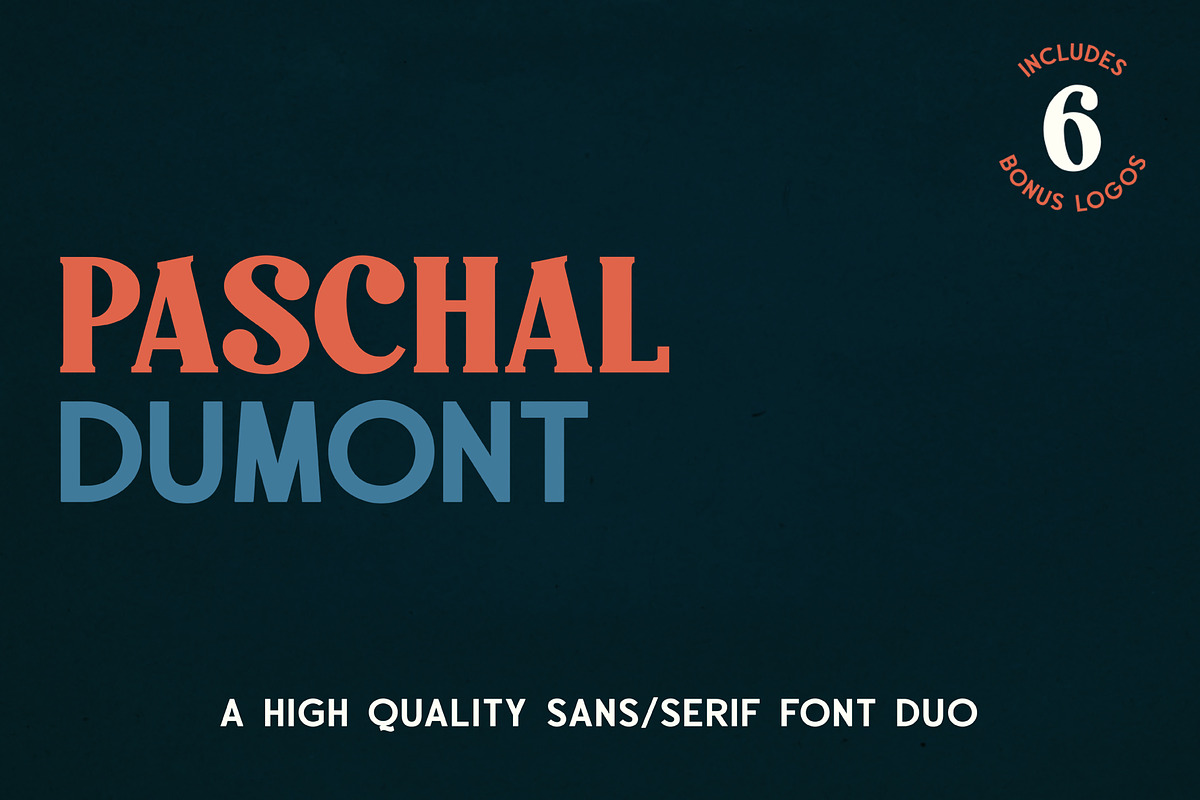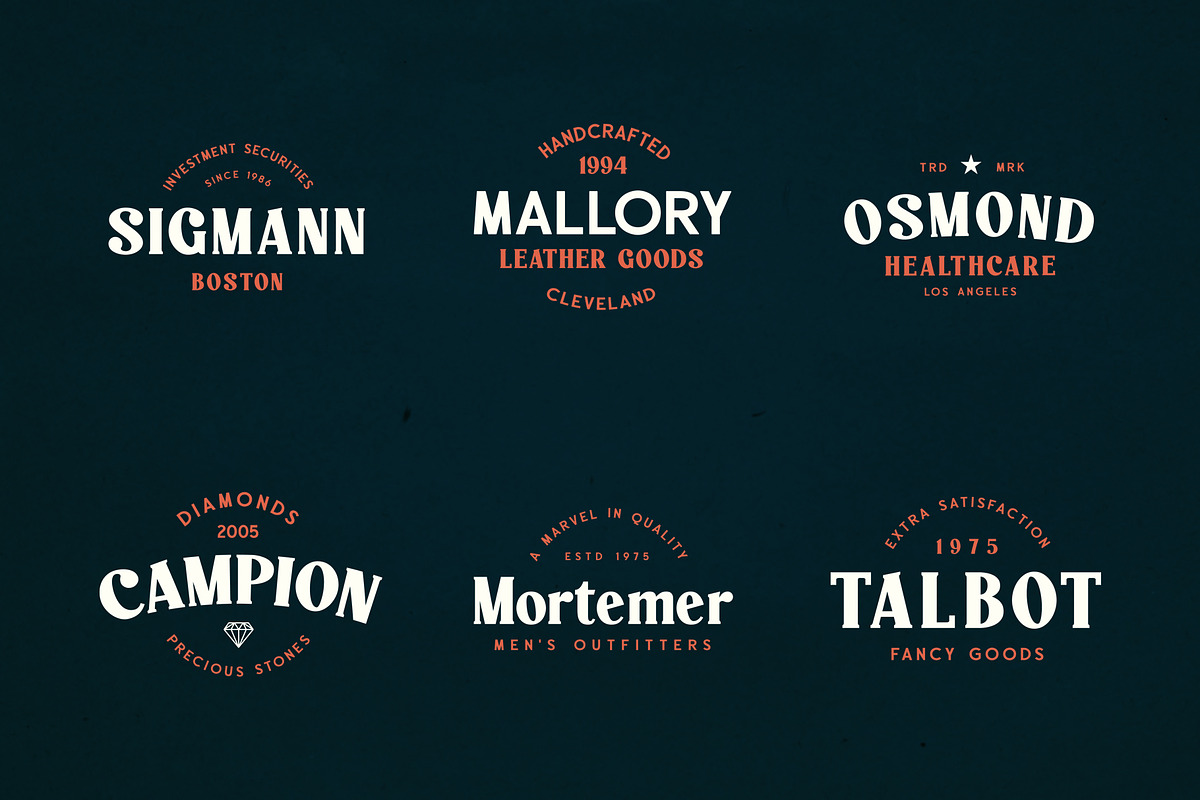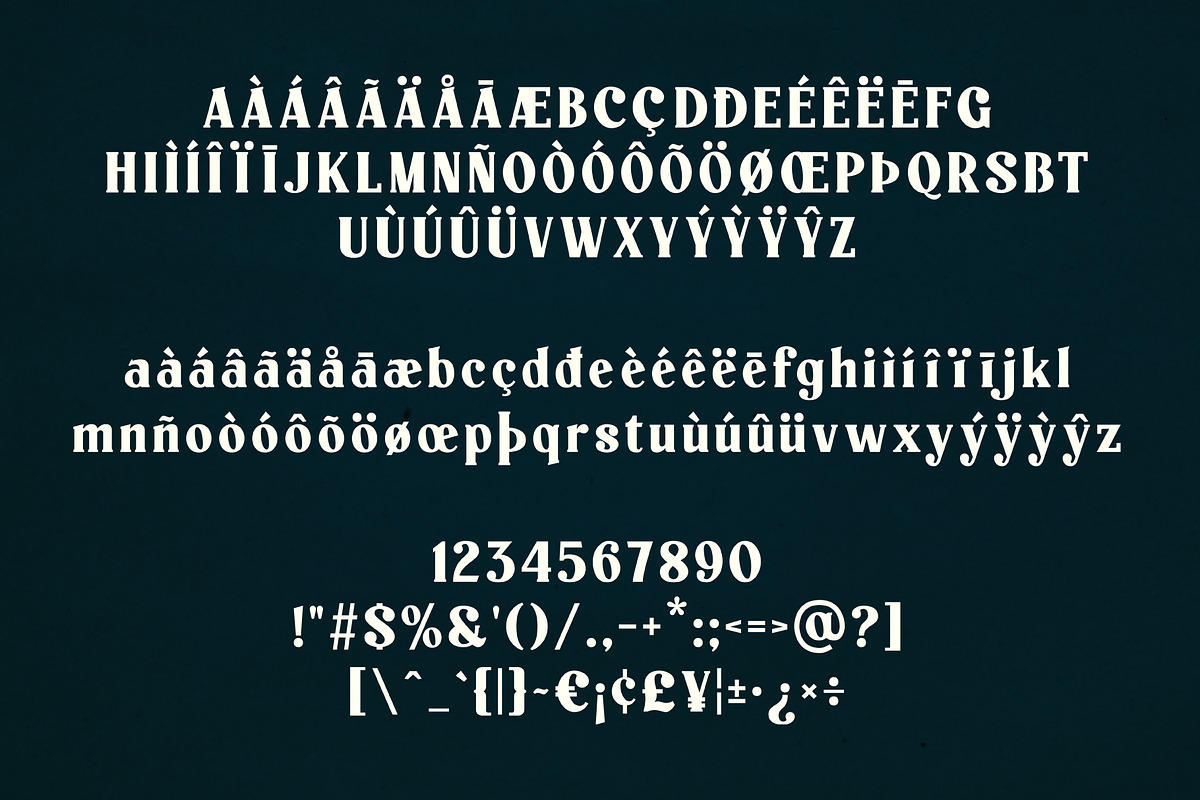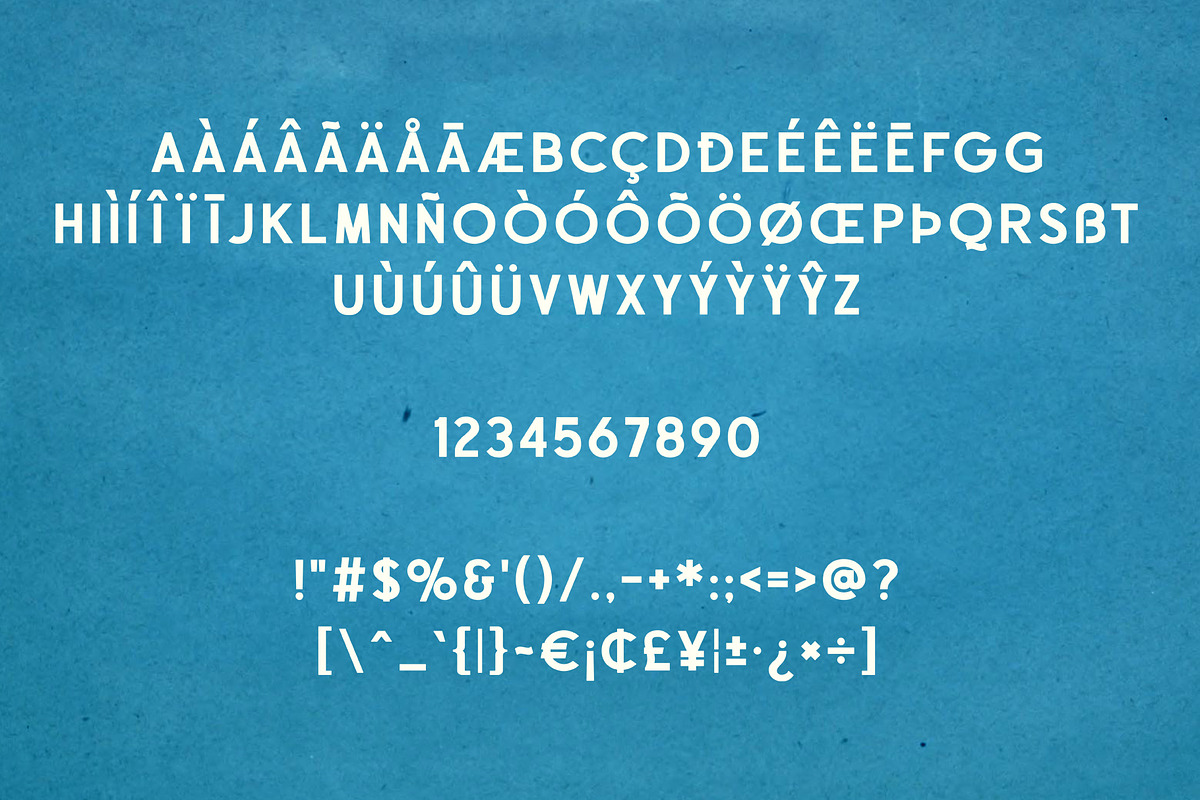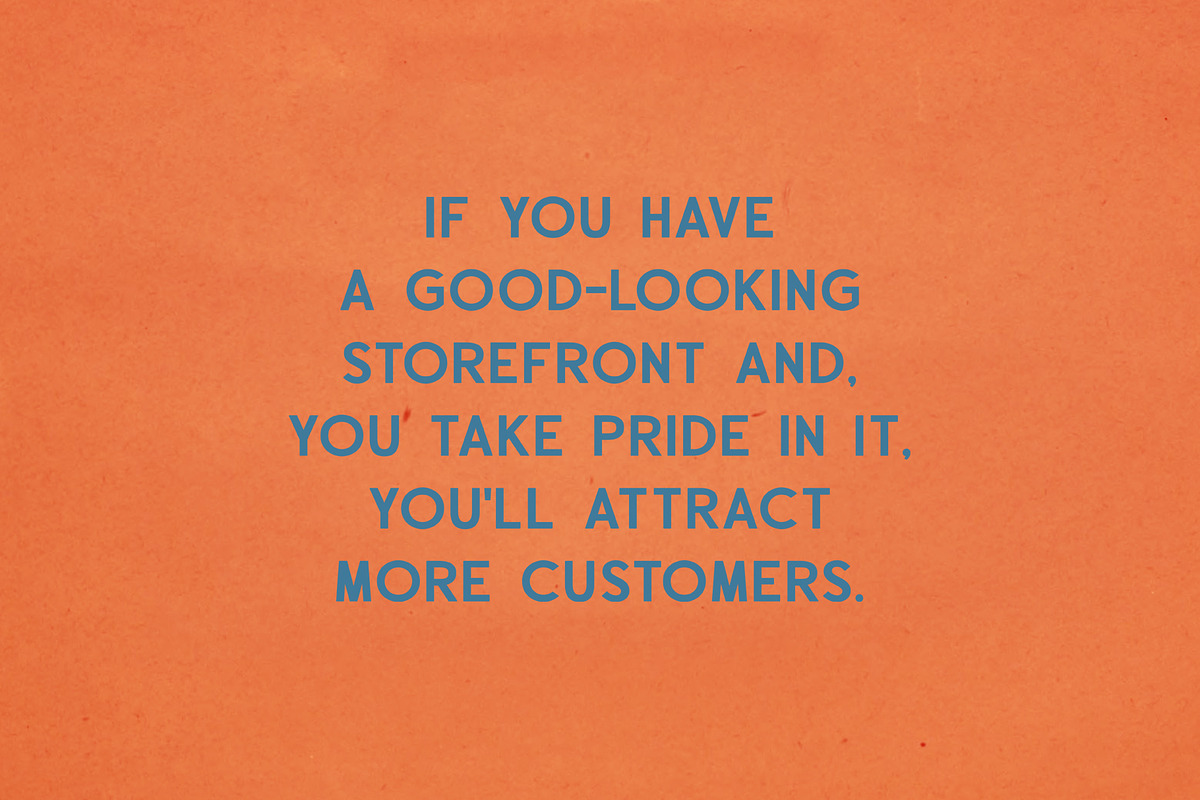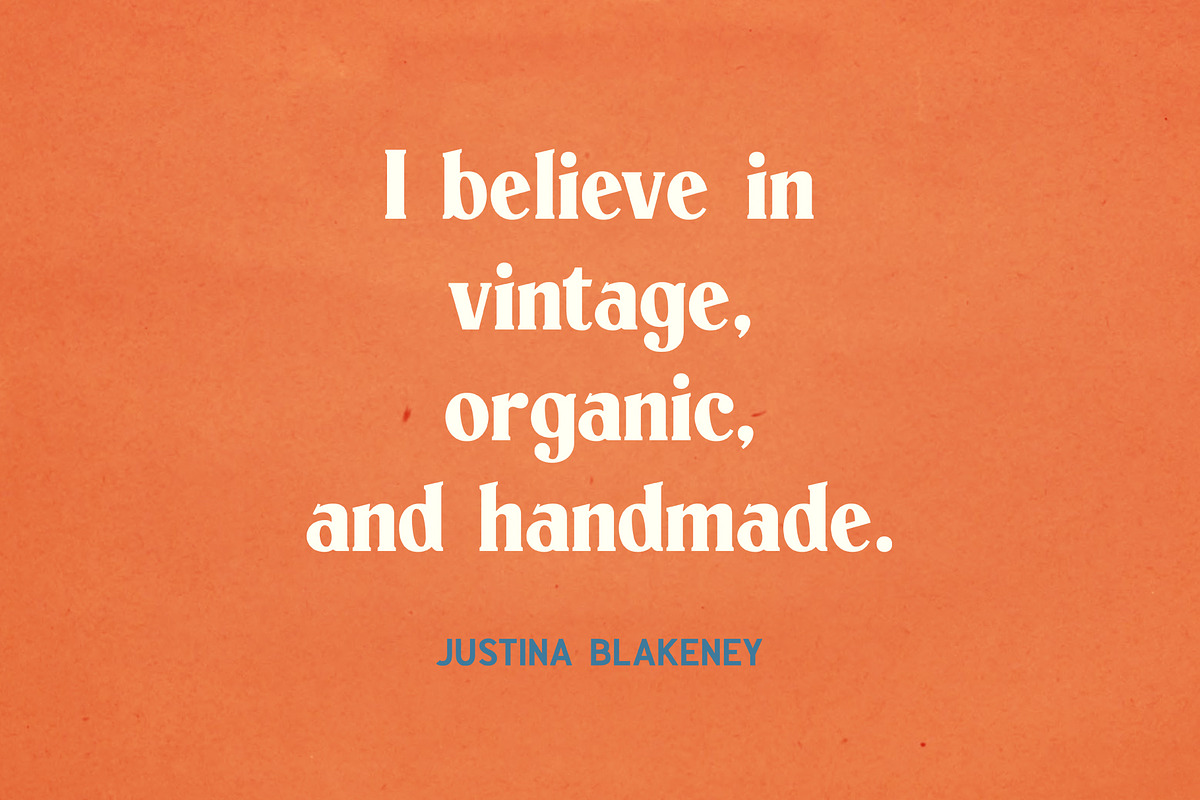
Paschal Dumont - a Modern Font Duo
Paschal Dumont - a Modern Vintage Font Duo
Paschal is a modern font inspired by classic serifs. Dumont is a clean, modern sans display typeface. A pair of these fonts are great for logo design, titling and headers, branding, posters and more.
Paschal Regular Italic
ÀÁÂÄÃÅĀ Æ Ç ÈÉÊËĒ ÎÏÍĪÌ Ñ ÔÖÒÓØÕ ÛÜÙU ŸÝỲŶ ÞŒ
àáâäãåā æ ç èéêëē îïíīì ñ ôöòóøõ ûüùu Ÿýỳŷ þœ